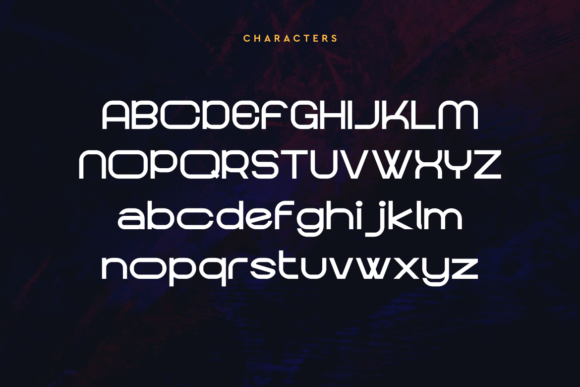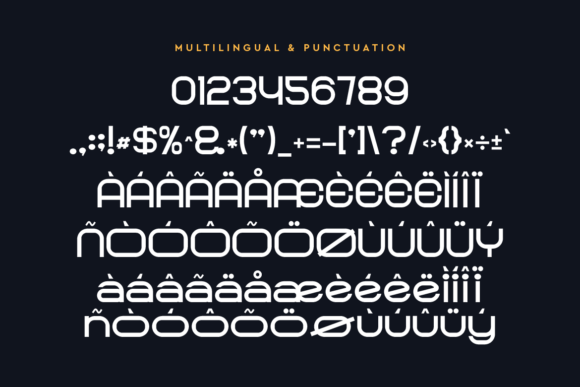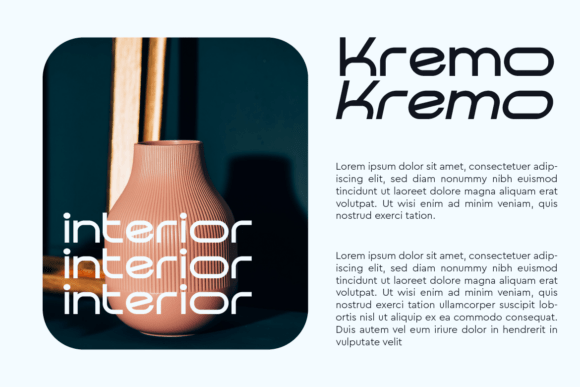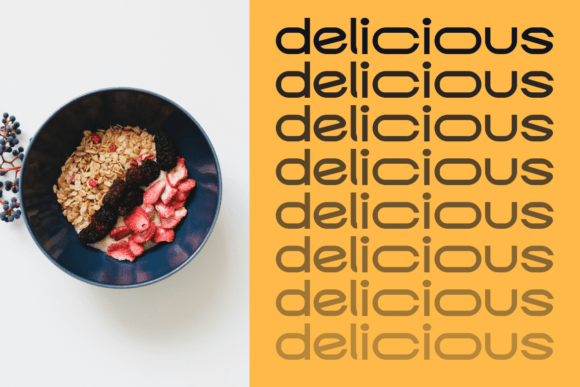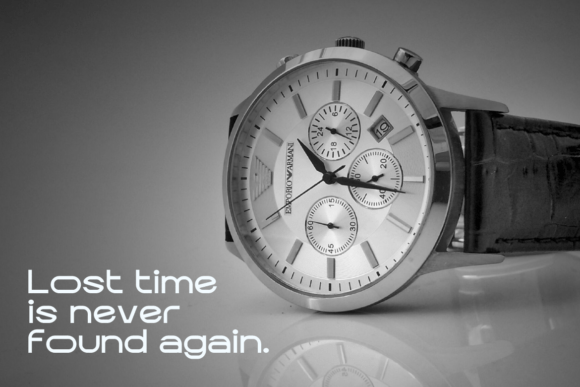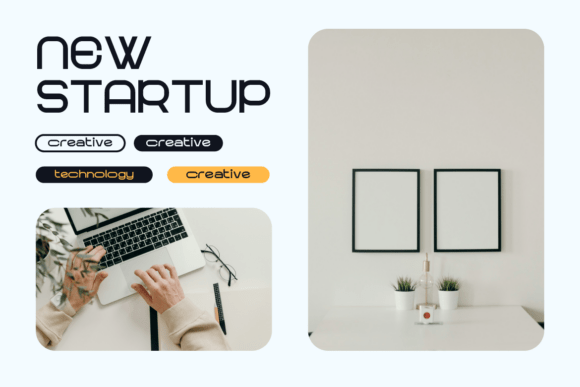
I still remember the frustration of working on a project, pouring my heart and soul into every detail, only to hit a roadblock when it came to choosing the right font. My client wanted something modern, sleek, and futuristic, but I was stuck in a sea of generic sans serifs. That’s when I discovered Cartitra, a game-changing font that has since become a staple in my design toolkit.
What is Cartitra?
Cartitra is a sleek and modern sans serif font designed specifically for the digital era. With its sharp edges, geometric precision, and futuristic details, Cartitra is perfect for technology branding, gaming interfaces, app design, posters, and any project that demands an innovative look.
My Honest Review of Cartitra
- ✨ Geometric precision: Cartitra’s clean lines and precise geometry make it perfect for tech and gaming projects.
- ✅ Versatility: This font works beautifully in both digital and print formats.
- 💻 OpenType features: Cartitra supports a range of OpenType features, including stylistic alternates and glyphs.
- 🎨 Customization options: With multiple weights and styles, Cartitra offers endless possibilities for creative experimentation.
While Cartitra is an exceptional font, there are a few minor quirks to be aware of:
- 🤔 Limited ligatures: Cartitra has a limited set of ligatures, which may not be ideal for certain design projects.
- ⚠️ Some characters may require manual kerning: While Cartitra’s kerning is generally excellent, some character combinations may require manual adjustment.
The Backstory of Cartitra
Cartitra was designed with the digital era in mind. Its creator, a forward-thinking typographer, aimed to craft a font that would meet the demands of modern design. Inspired by the sleek lines and geometric shapes of futuristic architecture, Cartitra was born as a versatile and innovative font.
Q: What is Cartitra’s primary use case?
A: Cartitra is designed for technology branding, gaming interfaces, app design, posters, and any project that demands an innovative look.
Q: Does Cartitra support OpenType features?
A: Yes, Cartitra supports a range of OpenType features, including stylistic alternates and glyphs.
Q: Is Cartitra suitable for body text?
A: While Cartitra is primarily designed for headings and titles, it can be used for body text in certain contexts. However, its legibility may vary depending on the specific use case and font size.